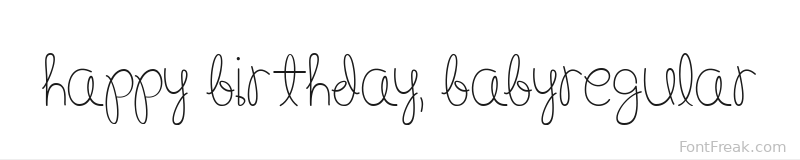
Happy Birthday, BabyRegular
Happy Birthday, BabyRegular by Misti Hammers is a charming handwritten font that beautifully captures the essence of celebration and joy. With its delicate yet playful strokes, this font falls into the decorative category, making it perfect for a variety of festive applications. The stroke weight is medium, providing a balanced appearance that enhances legibility while maintaining a whimsical feel. The spacing is thoughtfully designed, allowing the letters to breathe without losing their cohesive charm. Its light-hearted nature is accentuated by subtle curves and loops, adding a touch of personality to every letter.
This font shines in several specific use cases. It is ideally suited for birthday invitations, where its joyful style can set the perfect tone for a celebration. Additionally, it works wonderfully for greeting cards, allowing creators to express heartfelt sentiments in a visually appealing way. Event signage, especially for baby showers or children's parties, greatly benefits from the warm and inviting vibe of this font. Small business owners can also leverage Happy Birthday, BabyRegular for promotional materials, helping to create a friendly brand image that resonates with customers.
The target audience for this font includes graphic designers looking to add a playful touch to their projects, small business owners eager to engage clients with approachable designs, and content creators who wish to add a personalized flair to their work.
What makes Happy Birthday, BabyRegular font stand out is its ability to evoke happiness and celebration through its unique design. Its versatility and charm make it an excellent choice for anyone seeking to bring a sense of joy to their projects. You can easily access the Happy Birthday, BabyRegular font free download, making it a fantastic addition to your font collection.